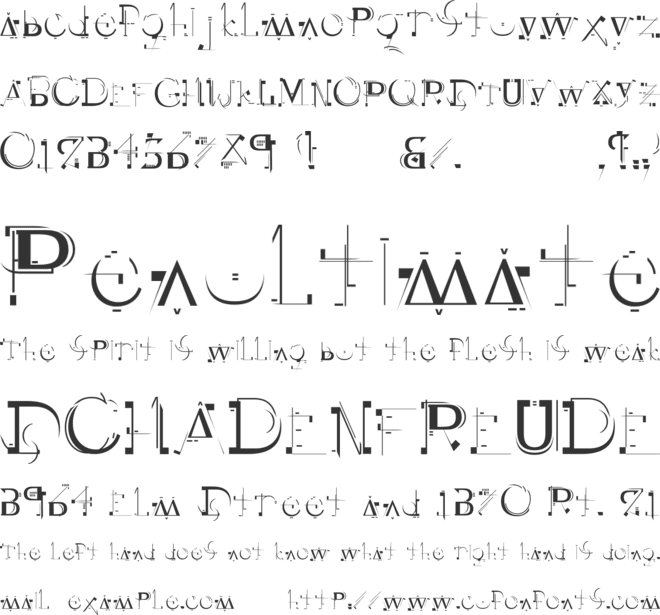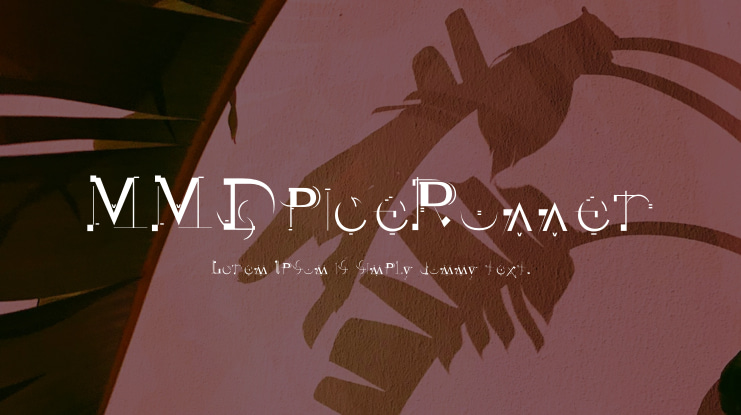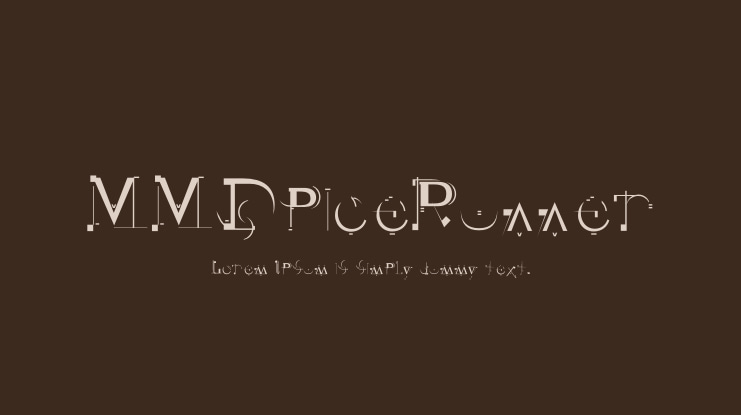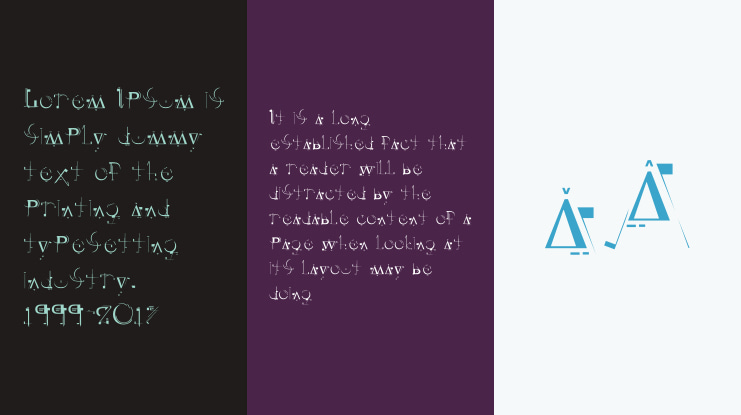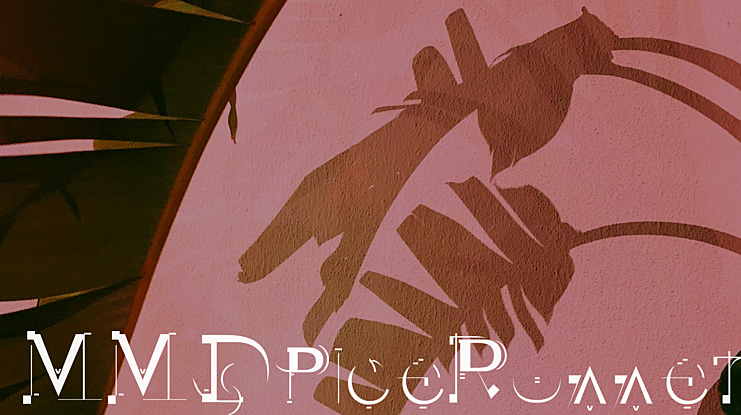
MMSpiceRunner Font
Marcus Melton
MM Spice Runner is a futuristic display typeface featuring a decorative alphabet inspired by sci-fi movies, space travel, and the Wild West. It is an excellent option for creative projects that dream of faraway galaxies.
MM Spice Runner